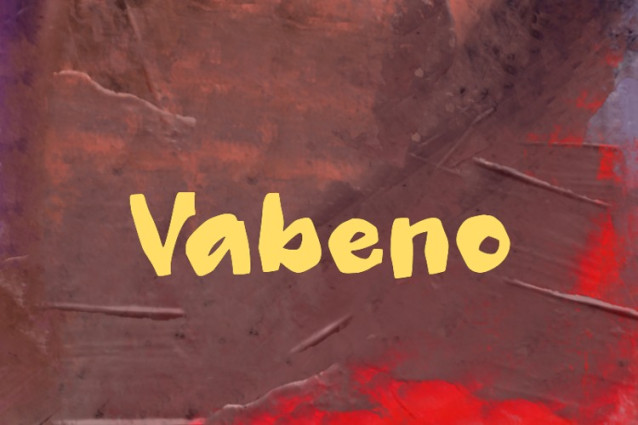
Vabeno Font
Vabeno Font, perfectly fit for branding, logo, wedding things, greeting cards, fashion, lookbook, marketing promotion, anytime you want to look fancy elegant but still casual.